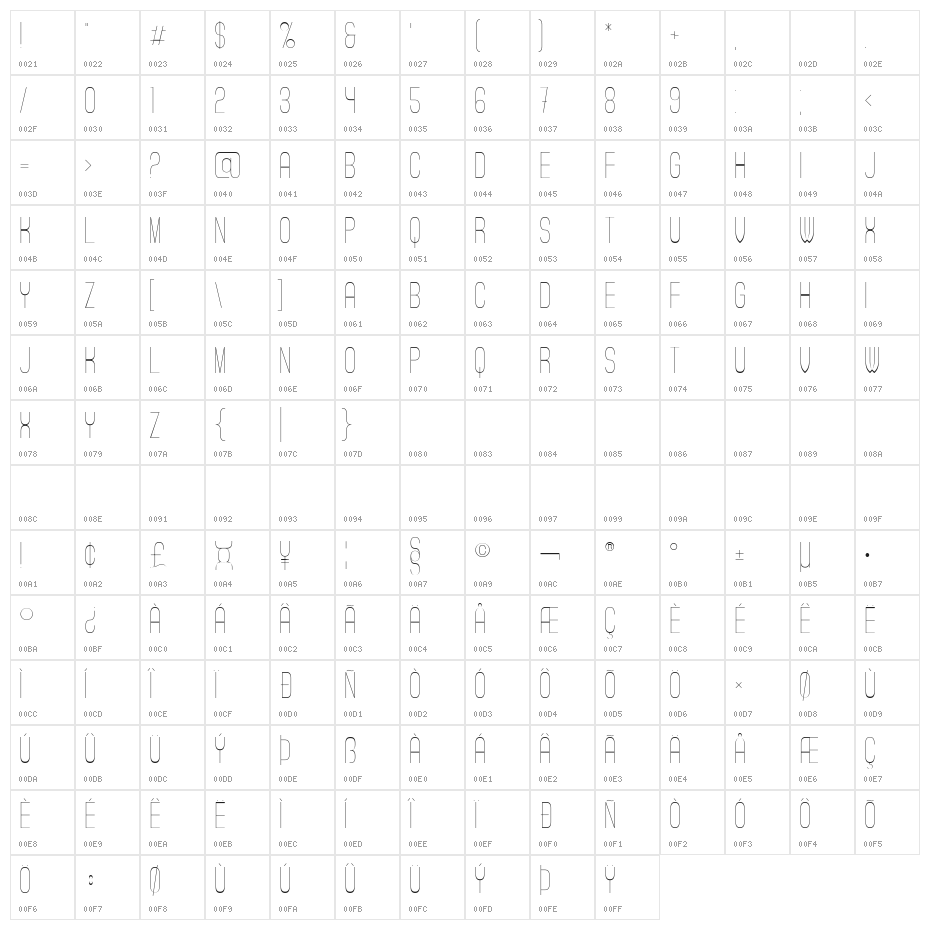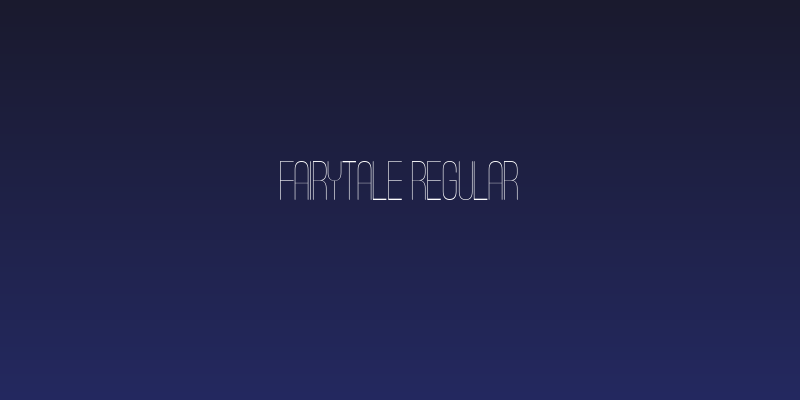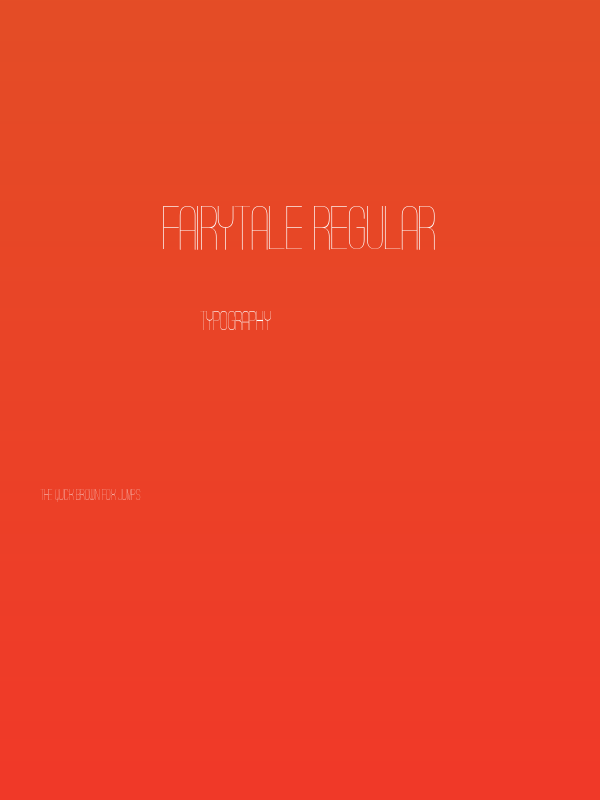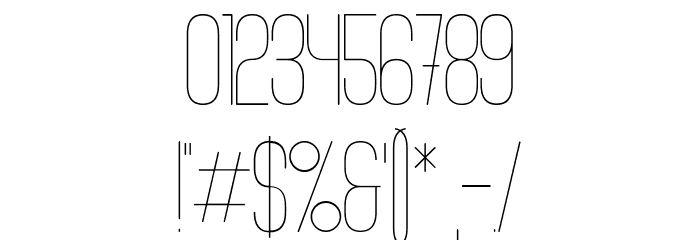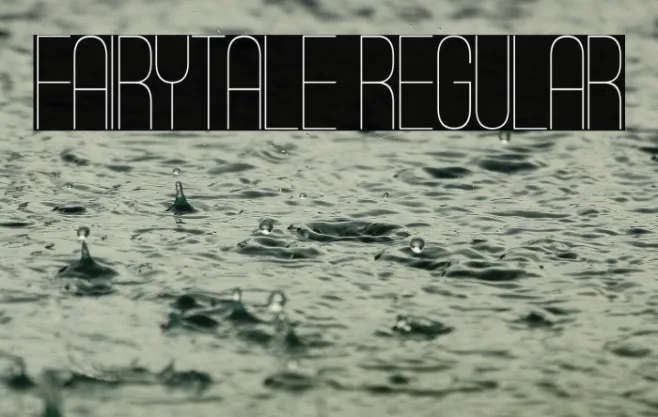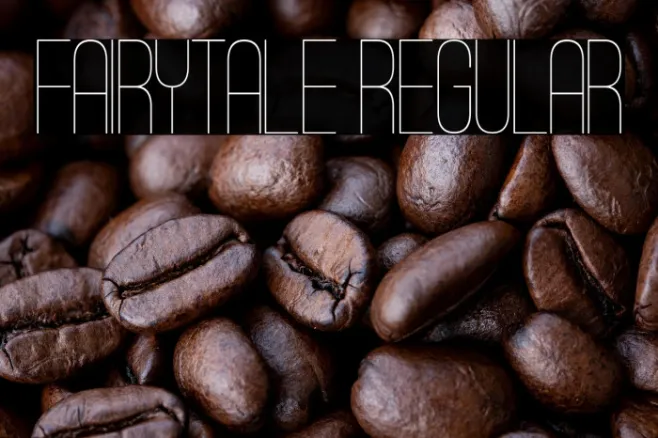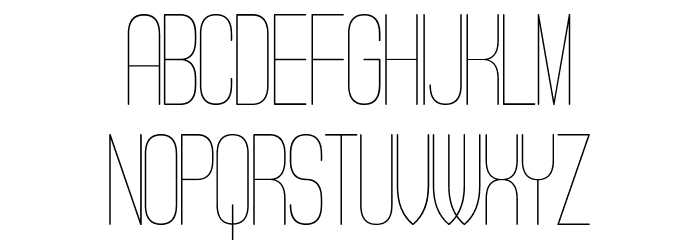
Fairytale Regular Font
Fairytale Regular Description
This font features an elegant and elongated design with thin, delicate lines that give it a sophisticated and airy appearance. The characters are tall and narrow, with a consistent stroke width that adds to its refined look. The uppercase letters are particularly striking, with a modern and minimalist aesthetic. The lowercase letters maintain the same slender style, ensuring a cohesive appearance across all text. The numerals and special characters are designed with the same attention to detail, making them suitable for a variety of uses. Overall, this font exudes a sense of elegance and modernity, making it ideal for projects that require a touch of sophistication.
| Proposed Projects | Ideal for fashion magazines, luxury branding, wedding invitations, and high-end product packaging. |